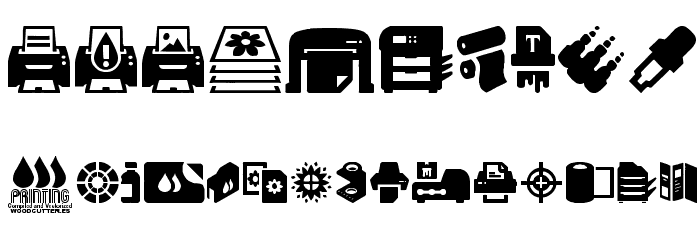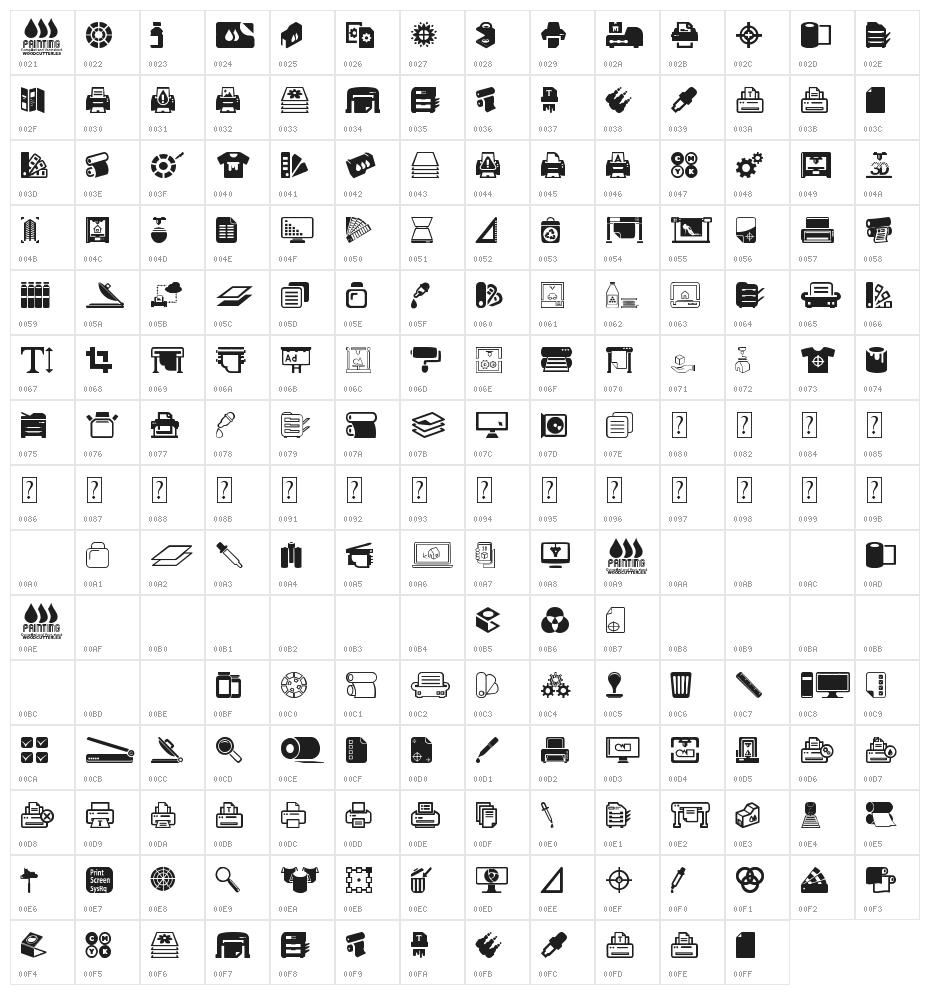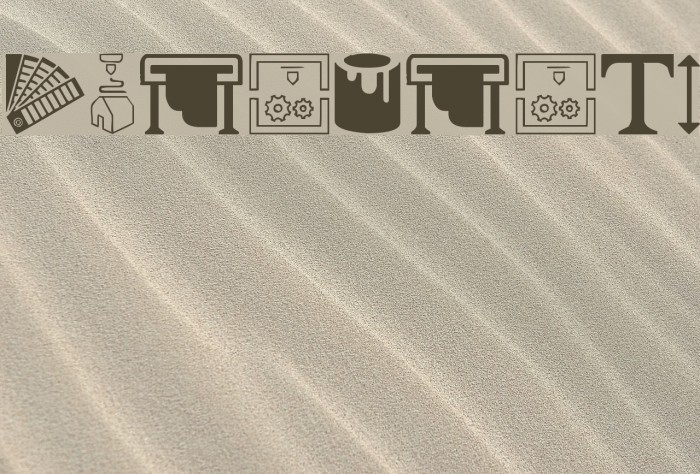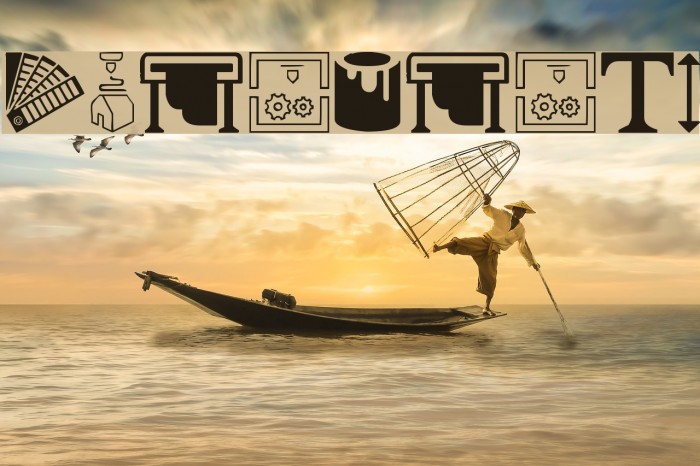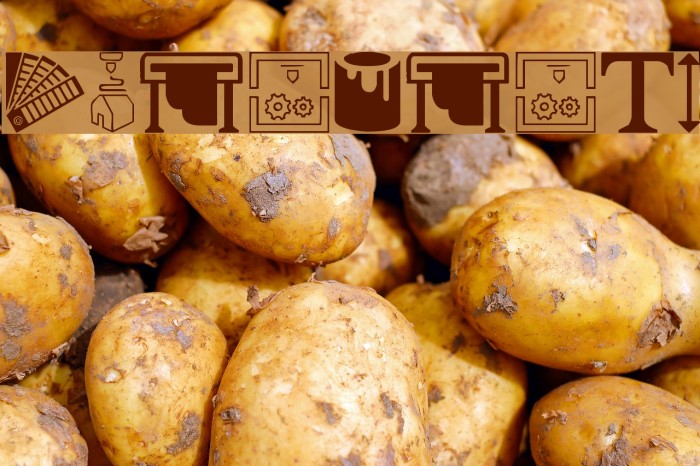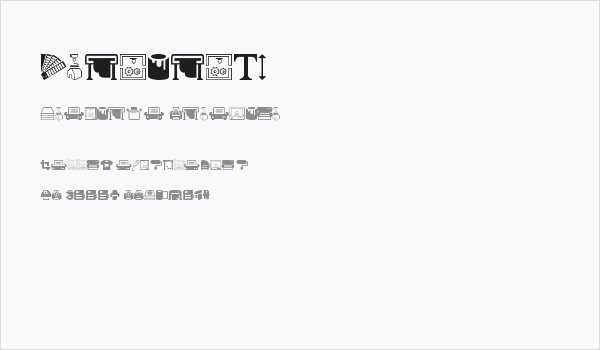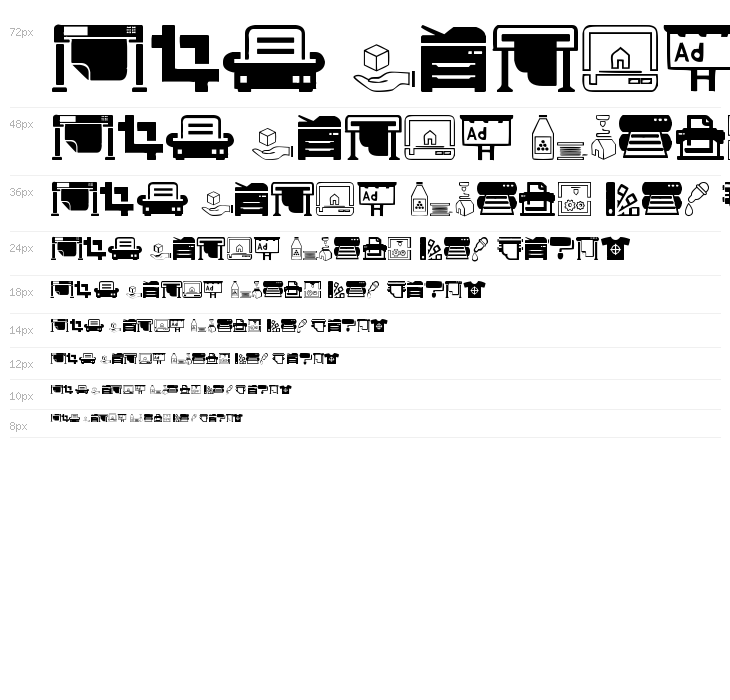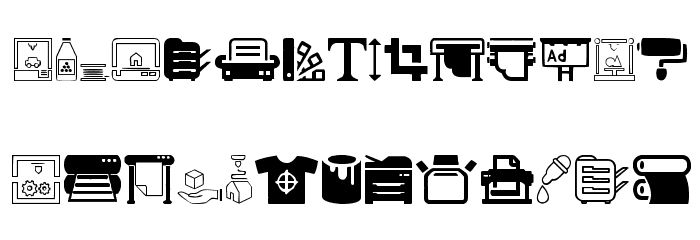
Printing Font
Printing Description
A highly decorative dingbat font composed entirely of printing-related icons and symbols, including printers, ink, paper, color palettes, and various print production tools. Each character is represented by a unique pictogram rather than a traditional letterform.
| Overall Style | Decorative, Thematic, Modern |
| Use Case | Icons, Infographics, Themed graphics, Visual aids |
| Proposed Projects | Infographics, instructional materials, signage for print shops, educational resources, themed posters. |